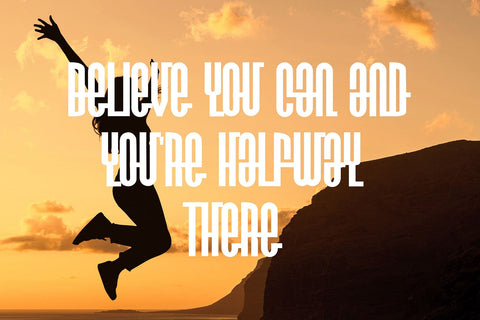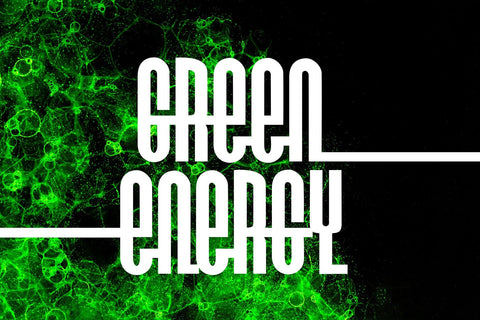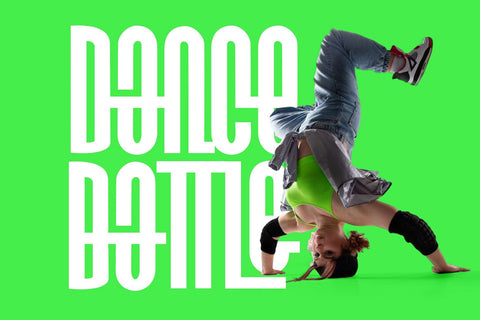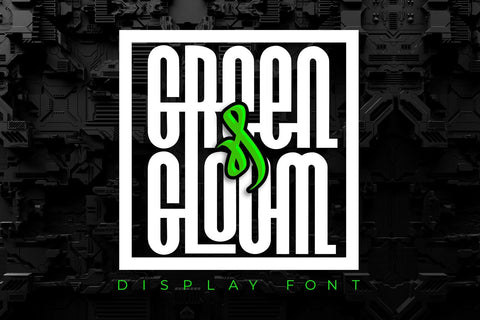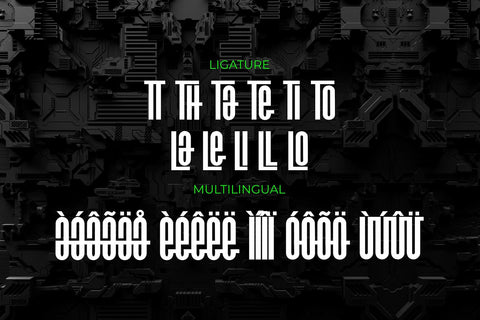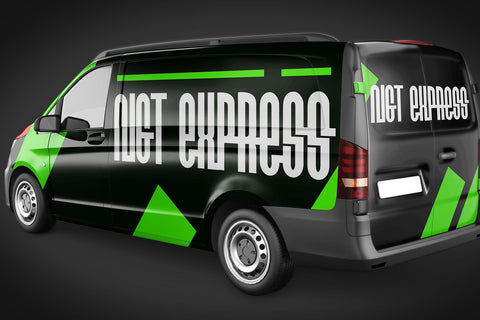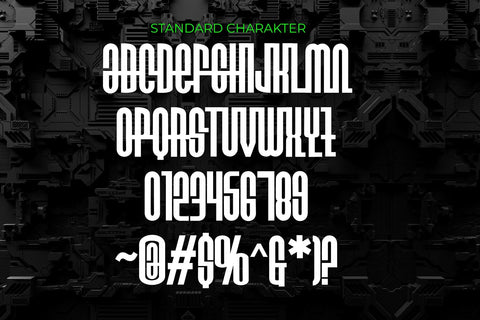
Green and Gloom - Geometric Display Font
Green and Gloom is a striking geometric display font that fuses modern design with a moody edge, perfect for projects that demand a bold, sophisticated presence. With its precise lines and angular shapes, this font brings a distinct, contemporary flair to any creative work.
💎 Stylish Precision: Green and Gloom’s clean, geometric forms offer a sleek aesthetic that stands out in branding, posters, packaging, and more. Its sharp design conveys both elegance and strength, making it versatile for various themes.
🌑 Dark Elegance: The name captures its dual essence—balancing vibrant creativity with a subtle, darker undertone. Whether you’re creating eye-catching titles or bold statements, this font adds a refined, dramatic touch.
Elevate your designs with the sharp style of Green and Gloom, where geometric perfection meets modern sophistication. Ideal for creators seeking a font that combines innovation with a unique visual impact.
- With Awesome Alternates